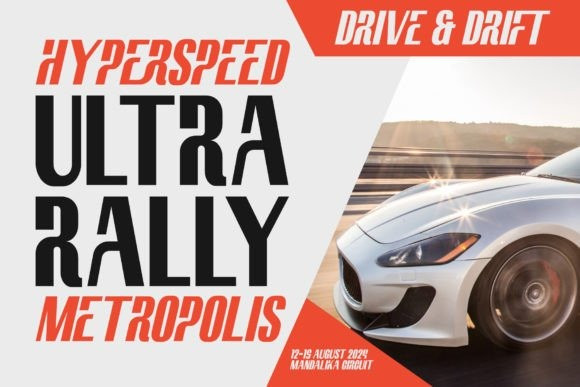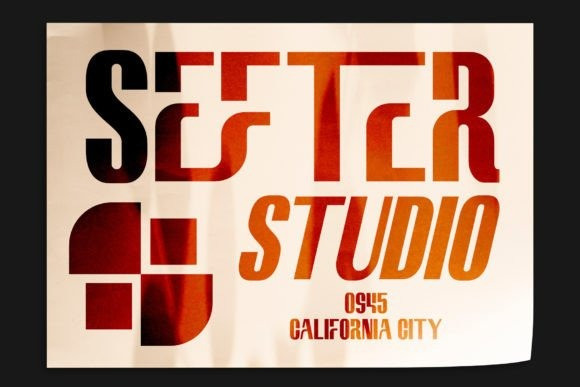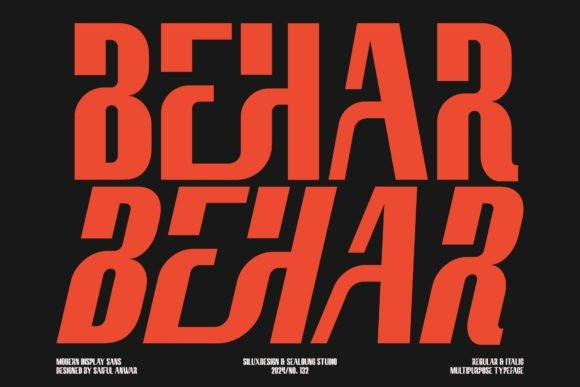
Behar Font
Behar Font is a modern display sans font that exudes sophistication and style. With its sleek lines and contemporary design, Behar is perfect for projects that require a touch of elegance. What sets Behar apart are its unique ligatures, which add a special flair to your typography. These ligatures seamlessly blend characters together, creating a harmonious and flowing look. Whether you’re designing a logo, heading, or any other creative project, Behar is sure to make a statement.
Behar not only offers a modern display sans style but also comes with italic variants, adding versatility to your designs. Its italic version maintains the same elegant and sleek design, perfect for adding emphasis or style to your text.
Additionally, Behar is designed to support multiple languages, making it suitable for a wide range of projects and audiences. Whether you’re designing for English, French, Spanish, or other languages, Behar ensures that your text looks great and remains readable in different linguistic contexts.